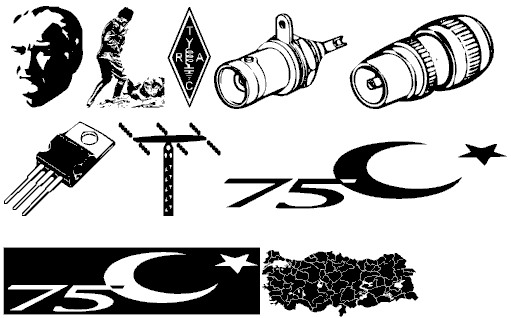
This font includes miscellaneous cartoon characters especially Tweety (my symbol) and Slyvester.
NOTE: The font characters merged to caps letters A..Z only!
Bu yazıtipi dosyası özellikle Tweety ve Slyvester olmak üzere çeşitli çizgifilm karekterlerini içerir.
This font includes resistor alphabet for electronic funs.
Bu yazıtipi dosyası birbirine paralel ve seri bağlı dirençlerden oluşmaktadır.
This font includes TRAC Logo (Radio Amateurs Club of Turkiye)
Bu yazıtipi dosyası TRAC logosu, Atatürk gravürleri, 75. yıl sembolleri ve Türkiye haritası içerir.
This font includes Yildiz Technical University Logo.
Bu yazıtipi dosyası Yıldız Teknik Üniversitesinin Logosunu içermektedir.
This font includes Ataturk's (founder of modern Turkiye) pictures, Turkish map and Turkish flag.
Bu yazıtipi dosyasında Atatürk gravürleri, Türkiye haritası ve Türk bayrağı vardır.